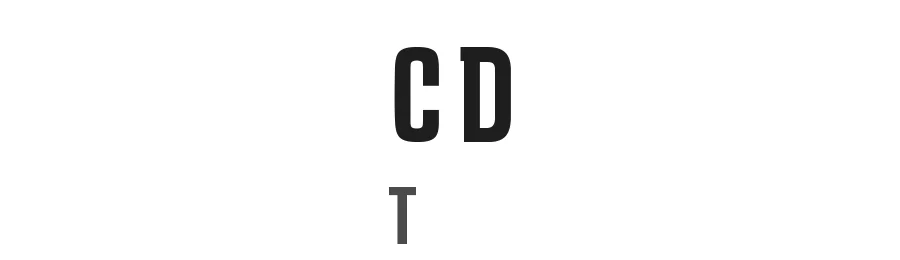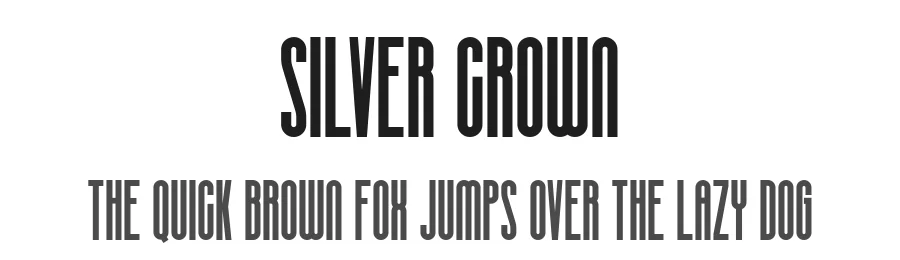
About Mete Font
'Mete' is a typeface inspired by my world travels. The Tall characters draw from the decorative curves on arabic calligraphy but are grounded in the geometric world of street signage. This type can be used for personal or professional projects such as online/offline magazines and/or books, posters, photography, websites, branding & identity, TV spots and much more.
Mete Font